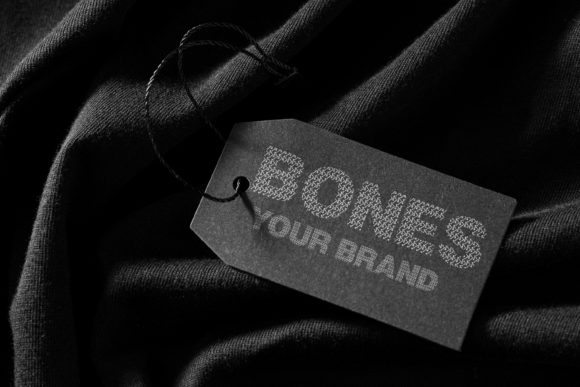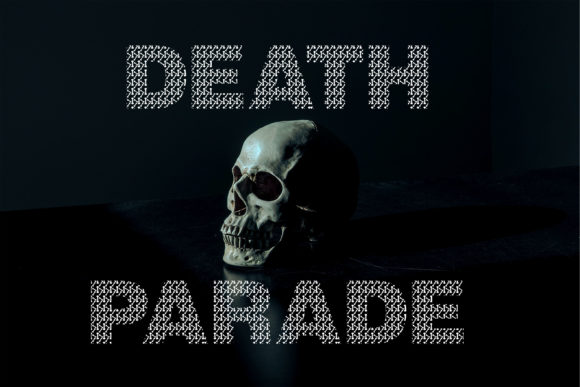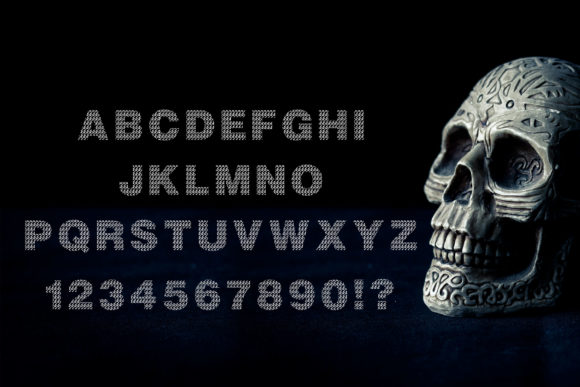
Bones Font: Elevate Your Designs with a Unique Display Font
In the world of typography, a font can make or break a design. For designers and crafters looking to add a touch of personality to their projects, Bones Font is an exciting choice. This display decorative font boasts a unique style that can instantly elevate your branding projects, making them stand out from the crowd.
What is Bones Font?
Bones Font is a specially crafted display font designed to add a distinctive flair to your designs. Its unique style is perfect for creating eye-catching logos, t-shirt prints, and other creative products. Whether you’re working on a branding project or looking to spice up your craft designs, Bones Font is an excellent option to consider.
Key Features of Bones Font
• Unique Style: Bones Font features a one-of-a-kind design that will set your projects apart from others.
• Display Decorative: This font is categorized as a display decorative font, making it perfect for headlines, titles, and short texts.
• Versatility: Bones Font can be used in a variety of contexts, from logos and t-shirt printing to creative products and more.
• Easy to Read: Despite its decorative nature, Bones Font remains clear and easy to read, making it functional as well as stylish.
Use Cases for Bones Font
Bones Font’s versatility makes it suitable for a wide range of design projects. Here are some use cases where Bones Font truly shines:
• Logo Design: Create memorable and impactful logos that capture the essence of your brand.
• T-Shirt Printing: Design eye-catching t-shirt prints that will stand out in a crowd.
• Creative Products: Add a personal touch to your craft designs, such as stickers, posters, and more.
• Branding Projects: Use Bones Font to create consistent and recognizable branding across various platforms.
Why Choose Bones Font?
With so many fonts available, why should you choose Bones Font for your projects? Here are a few compelling reasons:
• Uniqueness: Bones Font offers a fresh and unique style that will differentiate your designs from others.
• Quality: This font is crafted with high-quality design principles, ensuring it looks great in various contexts.
• Flexibility: Bones Font can be used for both digital and print projects, making it a versatile addition to your font library.
Tips for Using Bones Font Effectively
To get the most out of Bones Font, consider the following tips:
• Use it Sparingly: As a display font, Bones Font is best used sparingly for headlines or key messages.
• Pair it Wisely: Combine Bones Font with complementary fonts to create visual interest and hierarchy in your designs.
• Experiment with Colors: Don’t be afraid to experiment with different colors to find the perfect match for your design.
Bones Font is a unique and versatile display decorative font that can elevate your designs to new heights. Its distinctive style makes it perfect for a variety of projects, from logos and t-shirt printing to creative products and branding initiatives. By incorporating Bones Font into your design toolkit, you’ll be able to create eye-catching and memorable designs that stand out in a crowded marketplace.